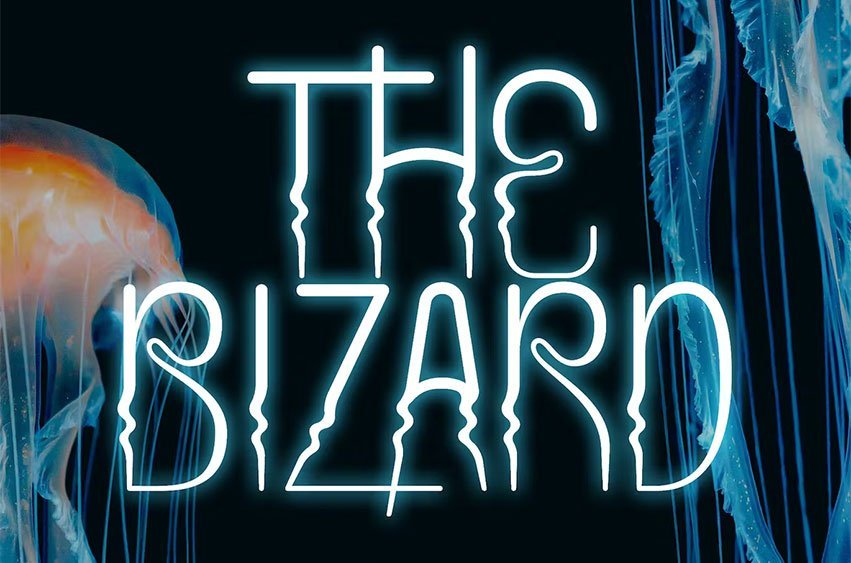
The Bizard Font is a captivating display font specifically designed for abstract designs, featuring unique wavy shapes reminiscent of water waves. This font seamlessly blends elegance and creativity within each character.
Every letter in The Bizard font is adorned with fluid and undulating curves, exuding dynamic and organic movements. Circular, curving, and intersecting lines form wave-like patterns that gracefully flow across each character. These wave elements mimic the natural flow of water, creating a visually stunning and captivating appearance.
The Bizard font’s smooth and sophisticated wave-like features add an artistic and experimental touch to any design. It is particularly well-suited for projects that require an abstract aesthetic, such as posters, logo designs, film titles, illustrations, or any other design that aims to convey a sense of creativity and uniqueness.
The Bizard offers a variety of letter variations that allow for diverse design possibilities. With its bold and expressive nature, this font can breathe life into your abstract designs, evoking a sense of movement and visual intrigue akin to the mesmerizing dance of water waves.
- Standard glyphs uppercase and lowercase letters
- Numerals, a large range of punctuation
- Lowercase letters